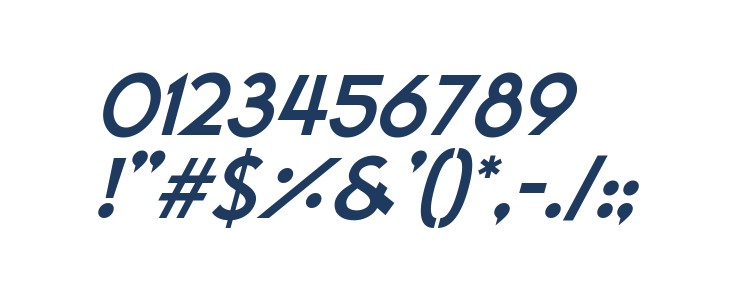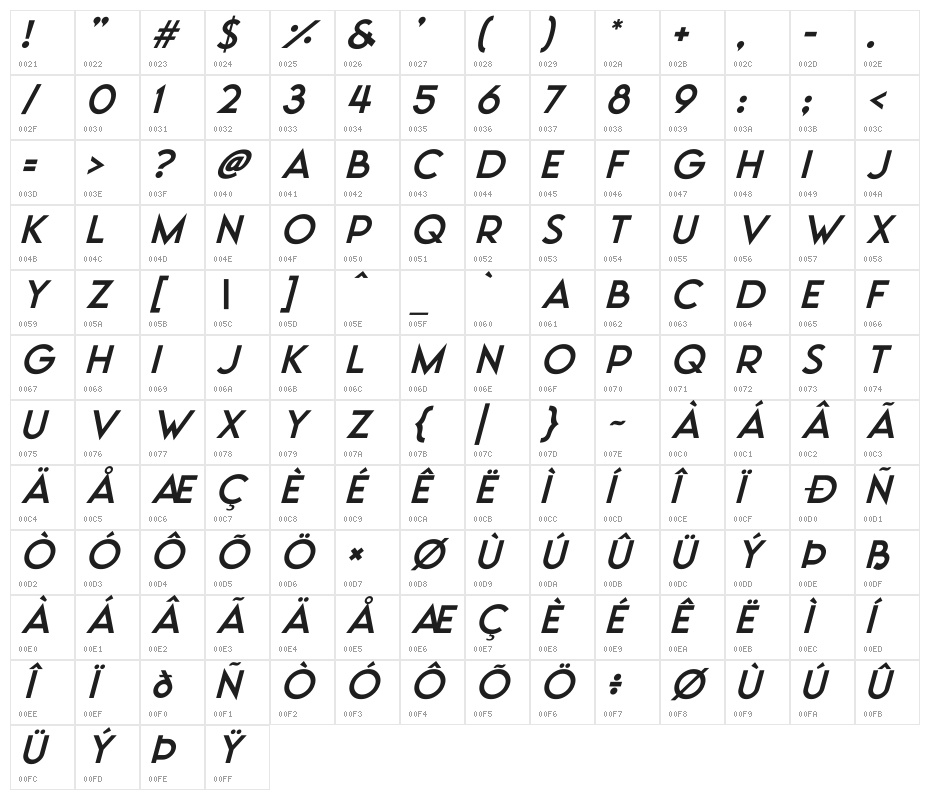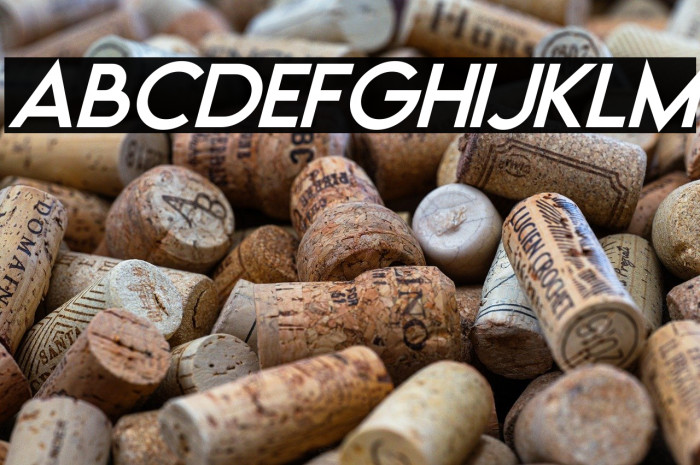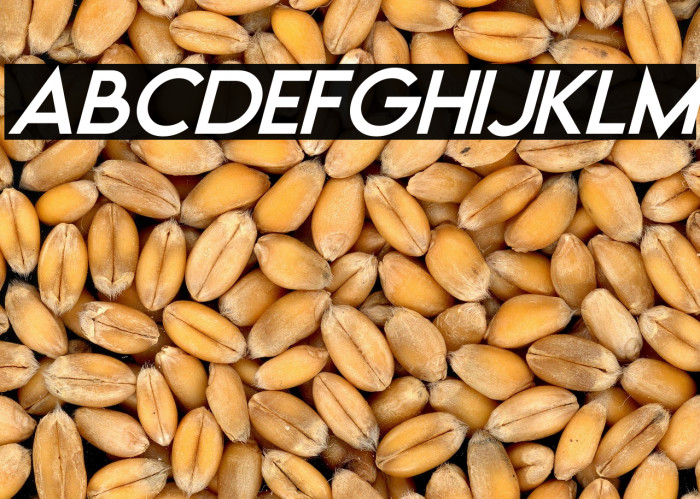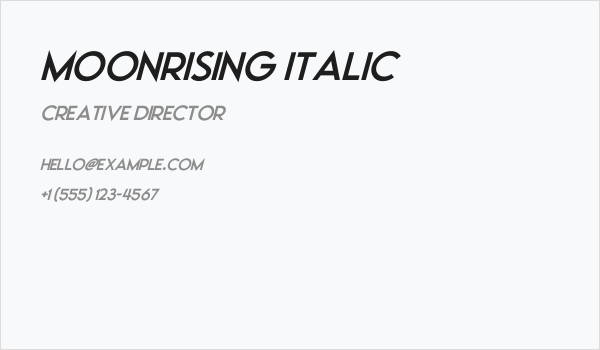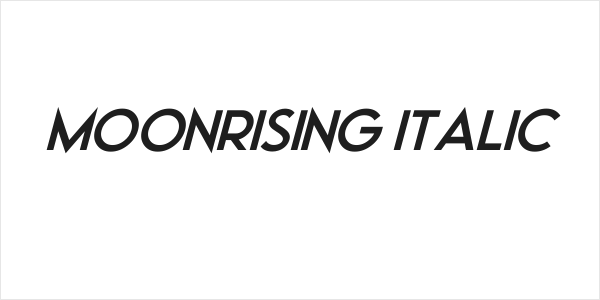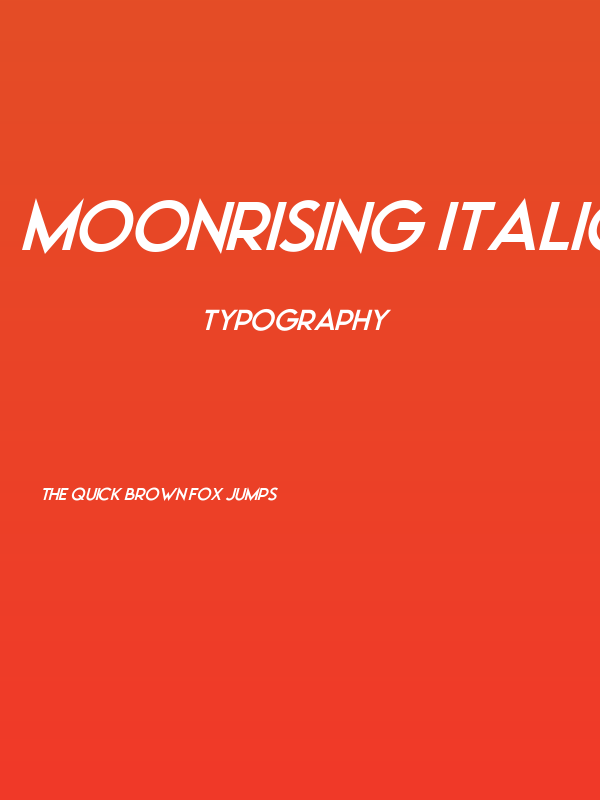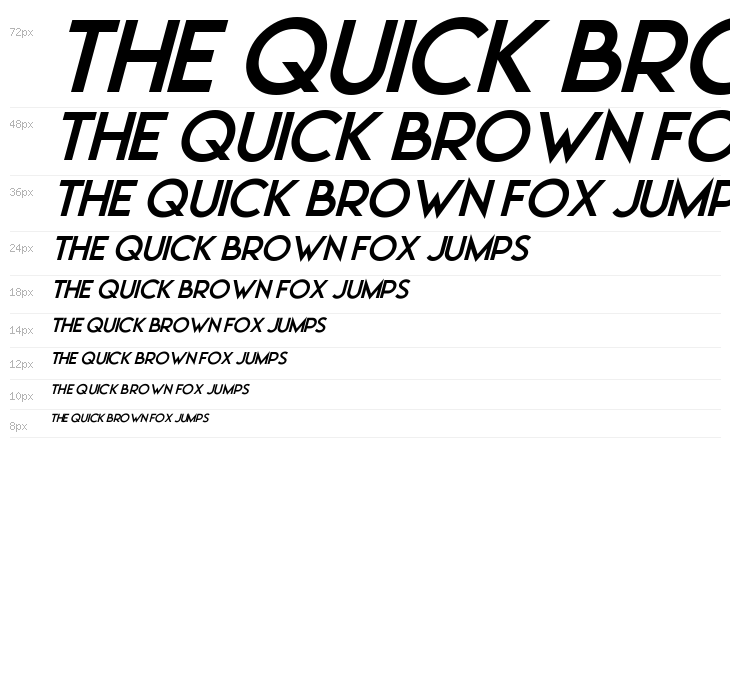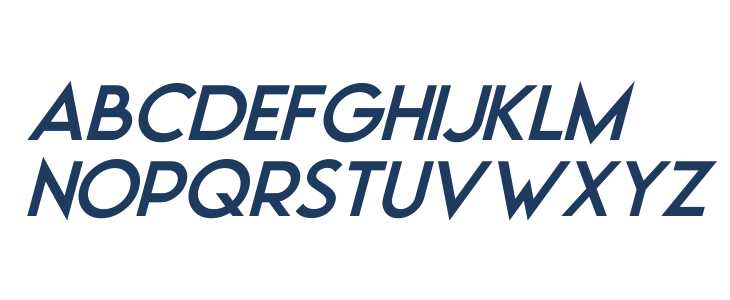
Moonrising Italic Font
Moonrising Italic Description
This font exhibits a sleek and modern design with a distinct italic slant, giving it a dynamic and forward-moving appearance. The characters are bold and well-defined, with a consistent stroke width that maintains readability while adding a touch of elegance. The uppercase and lowercase letters are harmoniously balanced, and the numerals are clear and easily distinguishable. The special characters are crafted with precision, enhancing the font's versatility. Its overall style is contemporary, making it suitable for a variety of design projects that require a stylish and professional look.